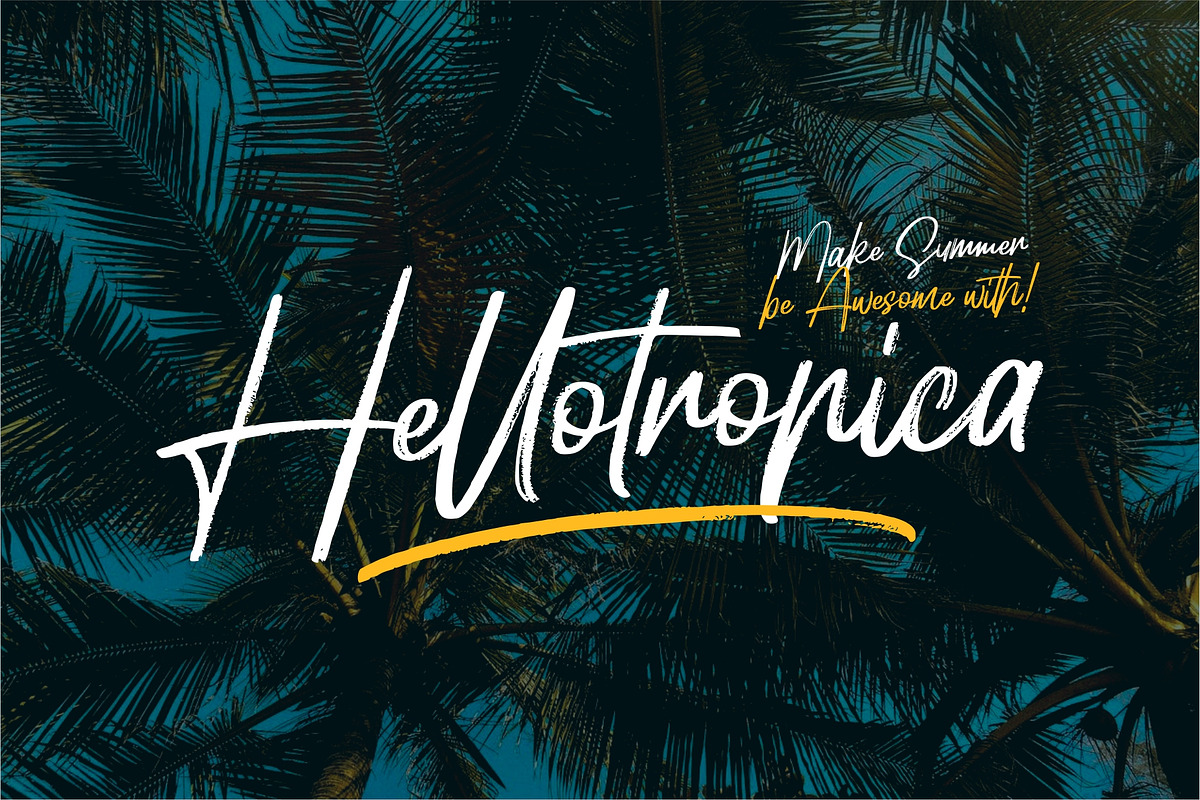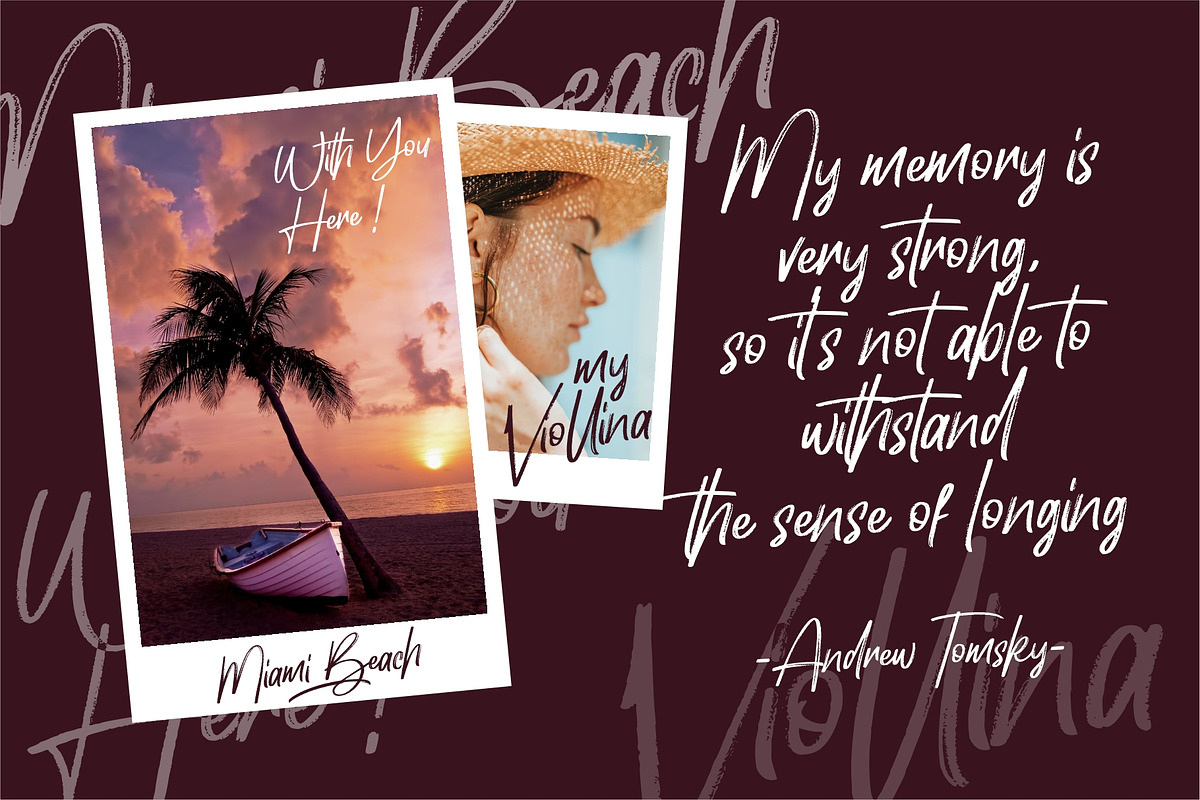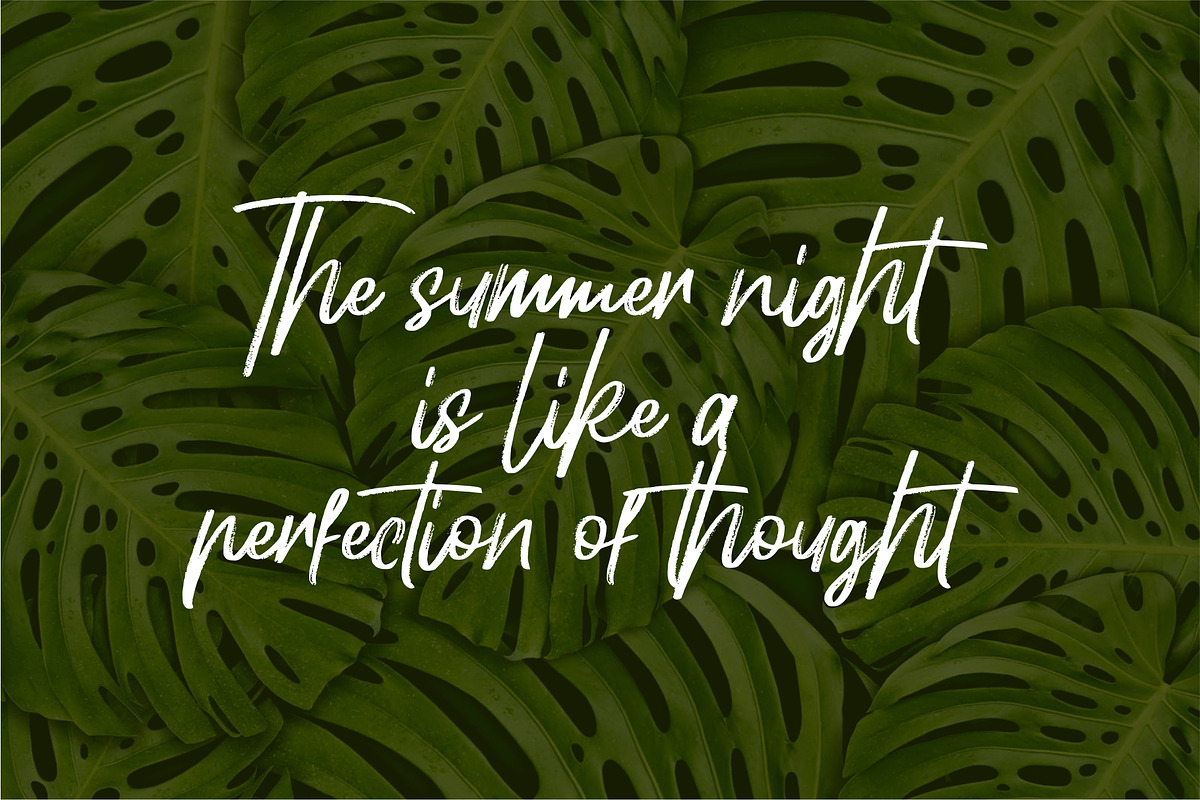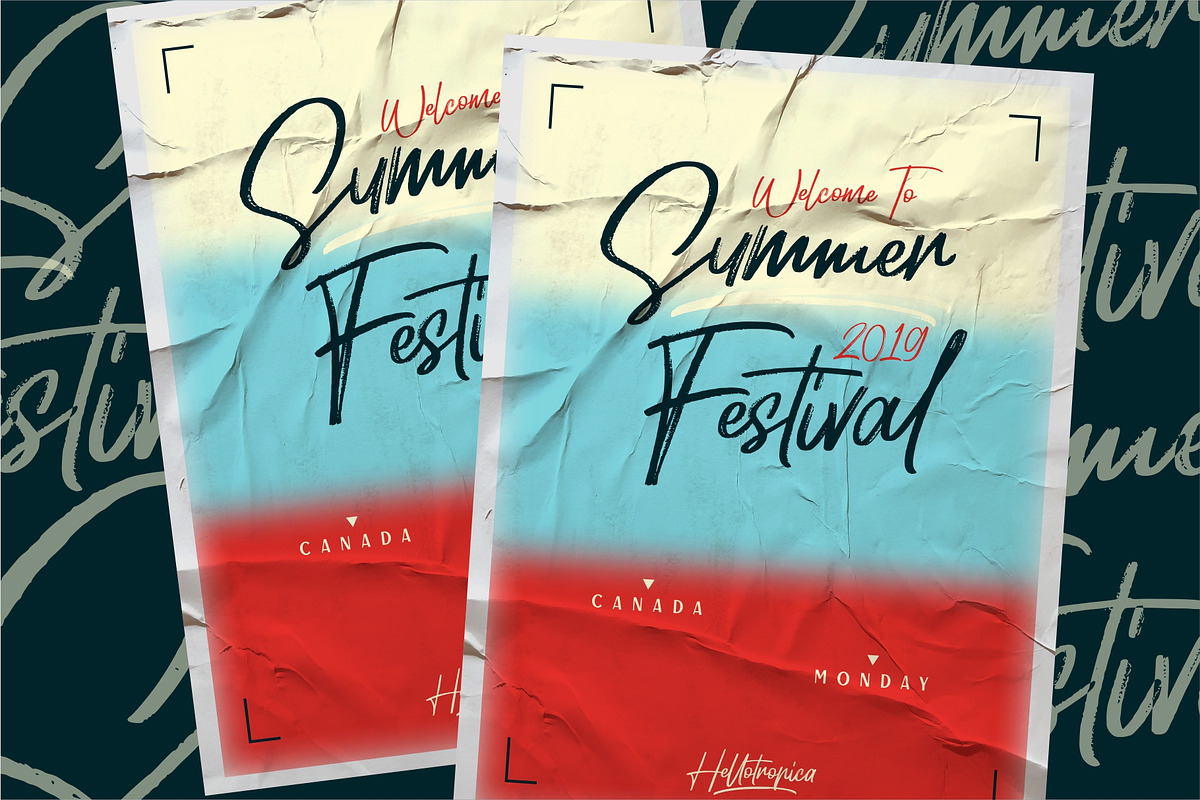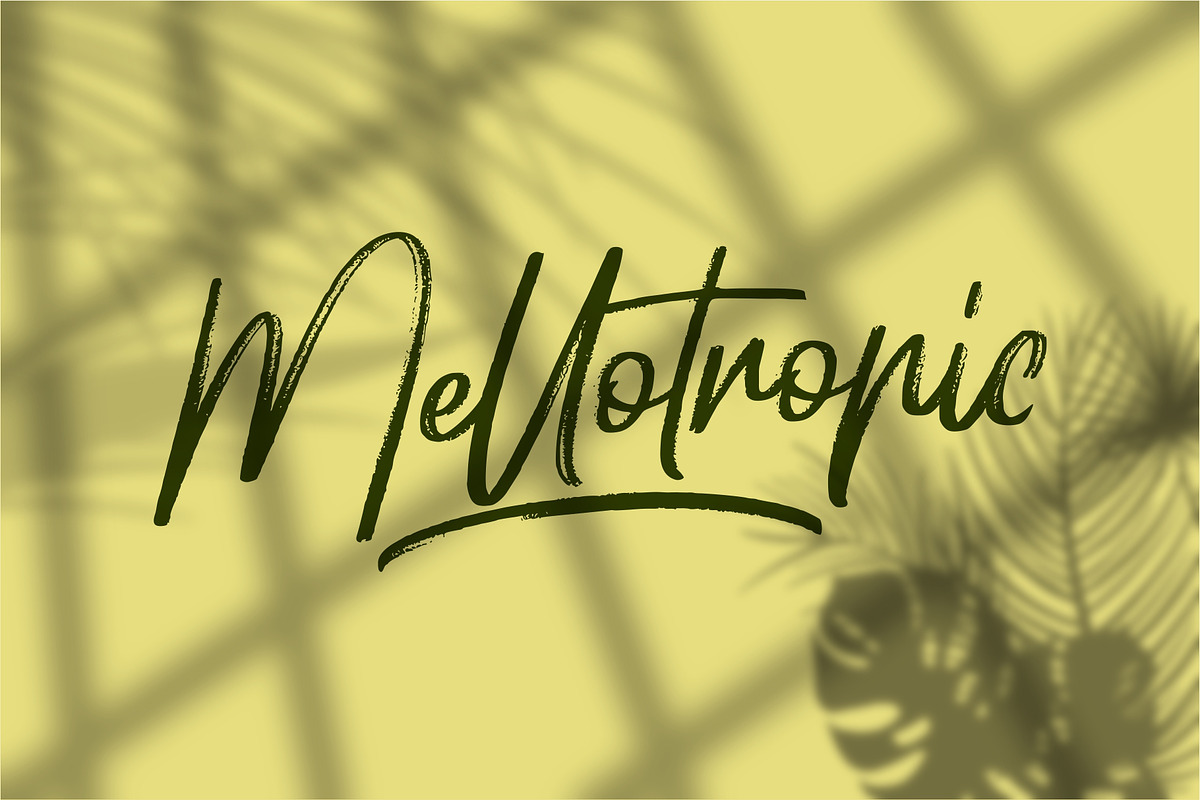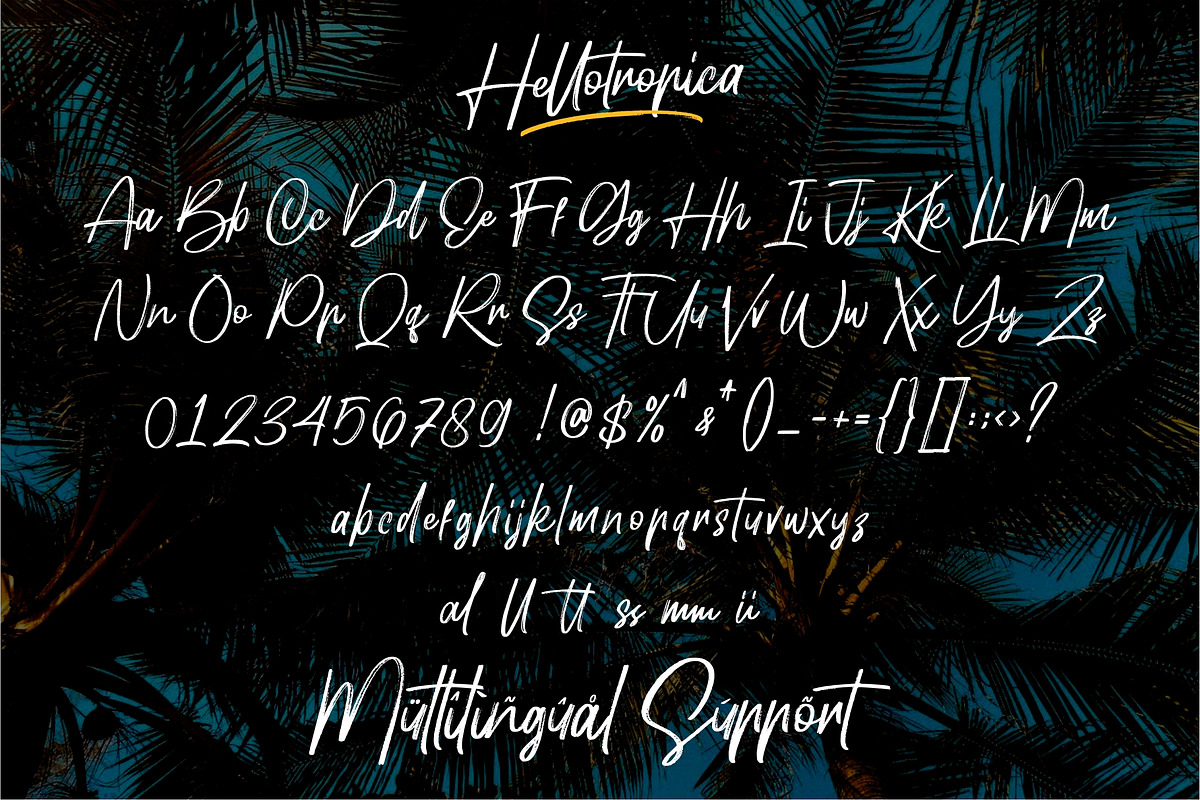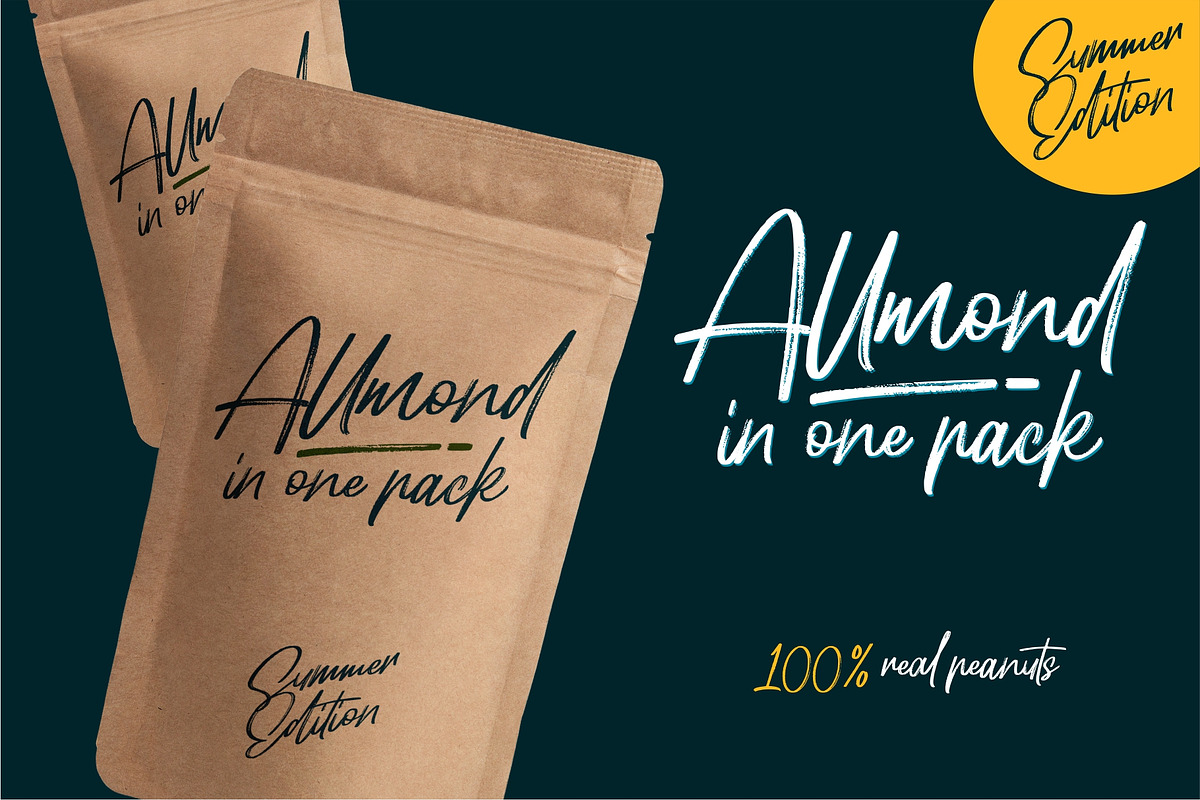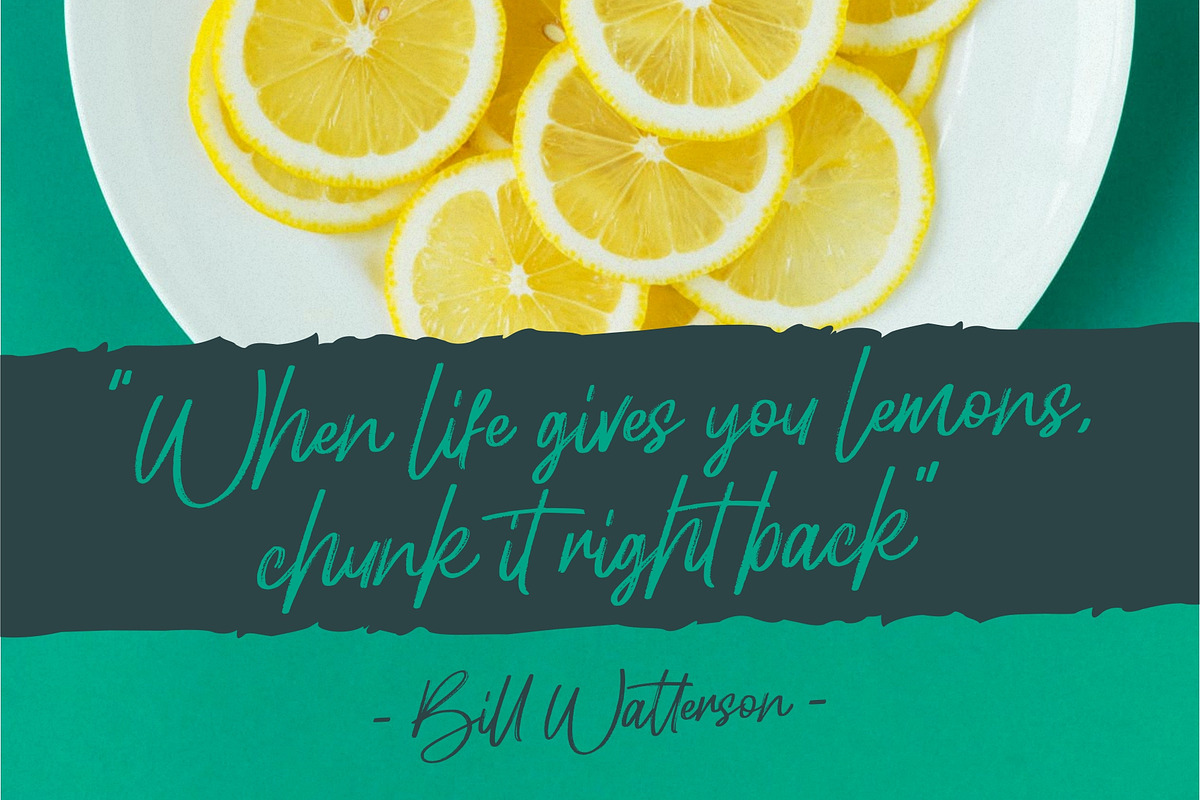
Hellotropica Handbrush Fonts
Hellotropica is made natural handbrushes with the styles for Summer Vibes. With the unique Opentype in it and the ligature will add aesthetic value to your design product. Available in this file are Hellotropica Swash which you can unite into an amazing design.
Versatile for poster, logotype, labels, book cover
- With the unique Opentype in it and the ligature will add aesthetic value to your design product.
Hellotropica Handbrush Fonts by Garisman Std fits naturally into Branding, posters, packaging, typography.